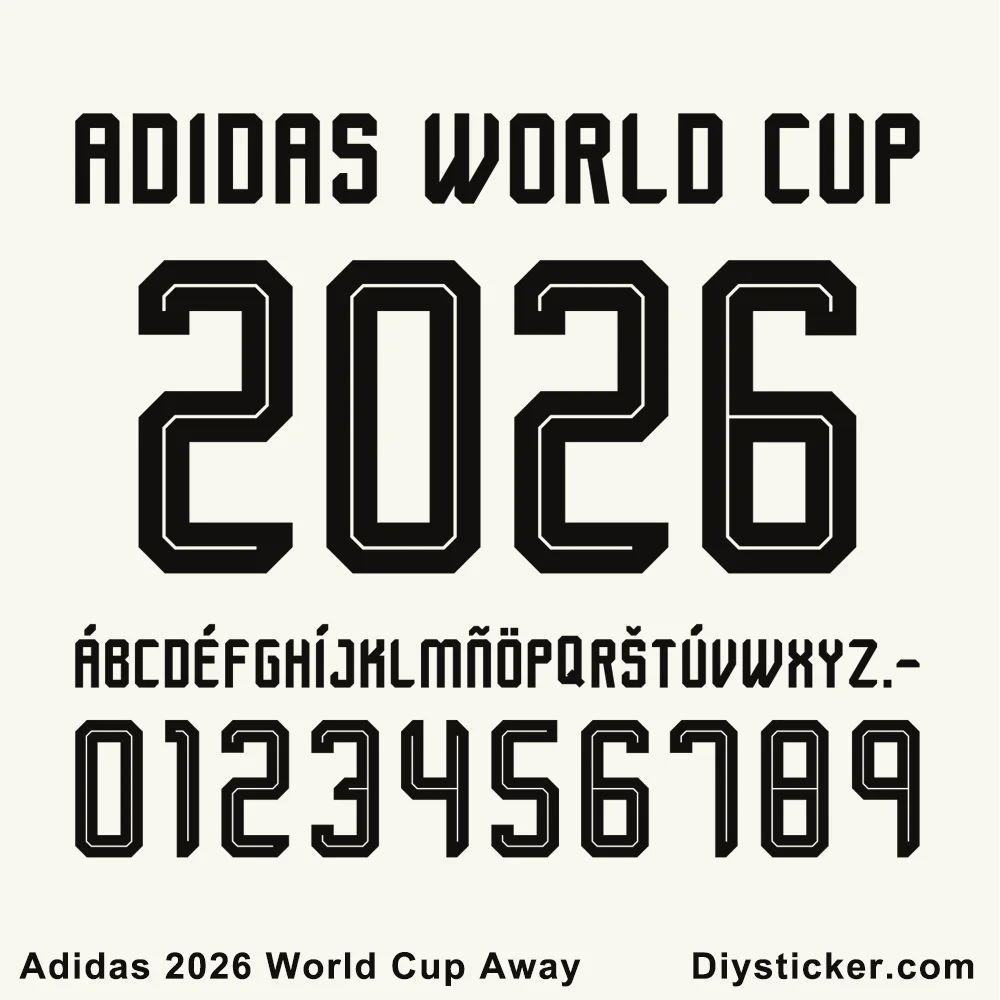
Create authentic 2026 World Cup designs with the official Adidas 2026 World Cup Away Font. This is the exclusive typeface developed by adidas for its sponsored national teams’ away kits during the tournament. Used by multiple federations, this font represents the unified adidas design identity for the world’s biggest football event.